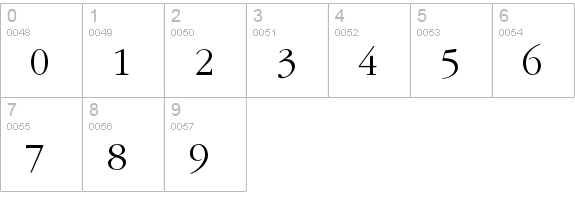
Gatineau Font Details
Gatineau font is a stunning typeface that effortlessly combines elegance with a touch of modernity. Its sleek lines and sophisticated curves make it perfect for a wide range of design projects, from branding to editorial design. The versatility of Gatineau font allows it to be used in both headlines and body text, ensuring a cohesive and polished look throughout your design. What makes Gatineau font even more appealing is that it is freely available to download at FontsMarket.com. This means that you can easily access this beautiful font without having to worry about any costs. Whether you are a seasoned designer or just starting out, Gatineau font is a must-have addition to your font collection. Elevate your designs with Gatineau font today and see the difference it can make!